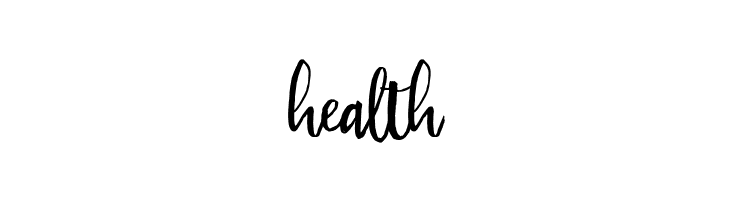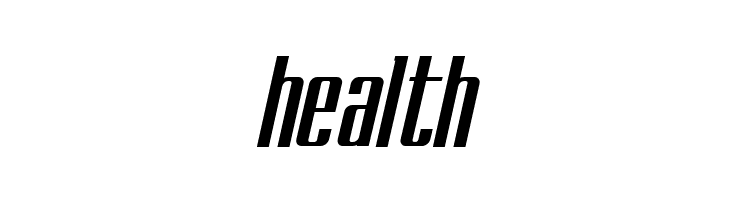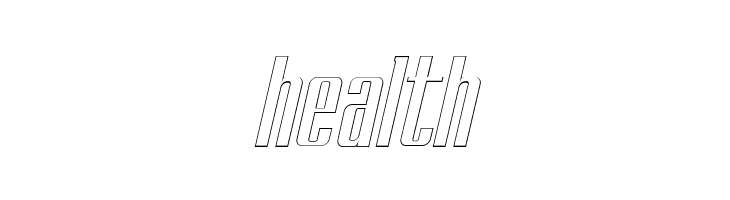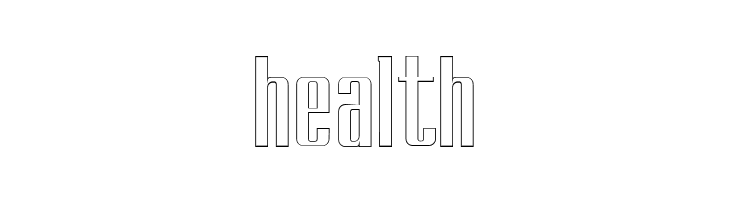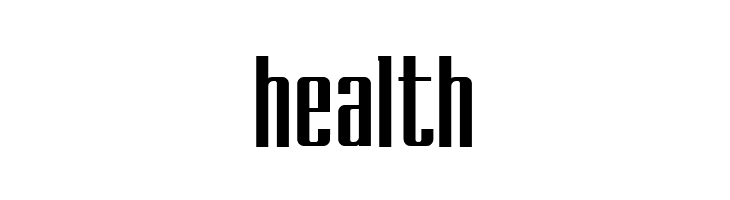
A bold, decorative font with a gothic, medieval-inspired design.
A bold, expressive brush script font with dynamic strokes and a hand-drawn feel.
A bold, condensed typeface with a modern, high-contrast design.
A sleek, italicized font with narrow, elongated characters and tight spacing.
A modern, geometric outline font with tall, narrow letterforms and consistent stroke widths.
A modern, italic outline font with elongated, narrow characters.
A cursive, elegant font with flowing strokes and a sophisticated style.
An elegant, flowing script font with sophisticated curves and loops.
A bold, playful script font with rounded, flowing characters.